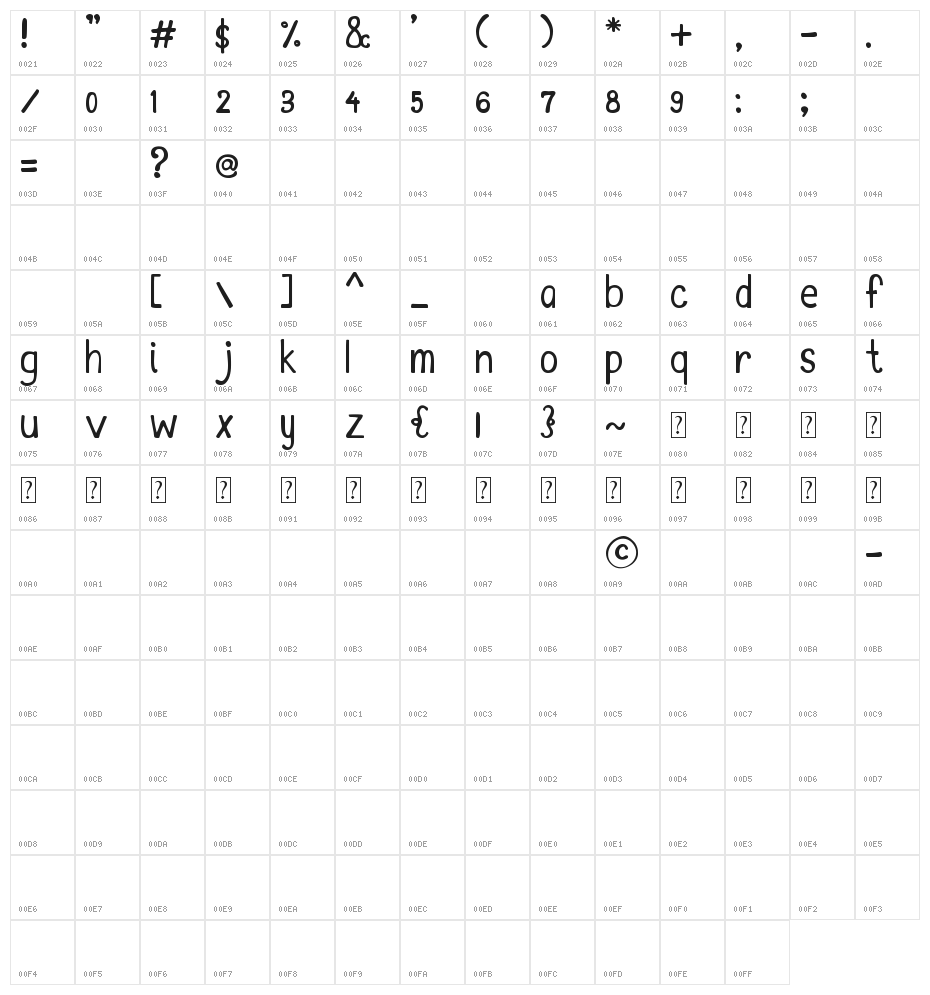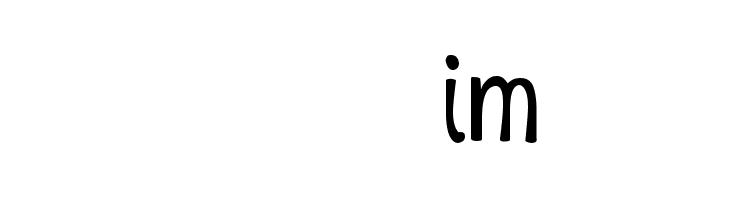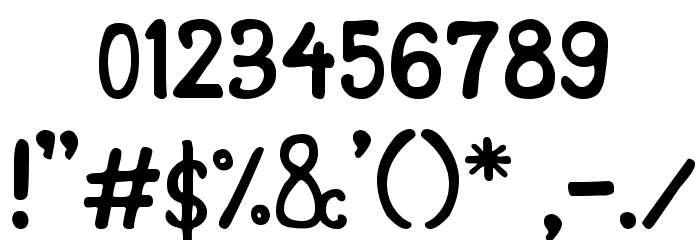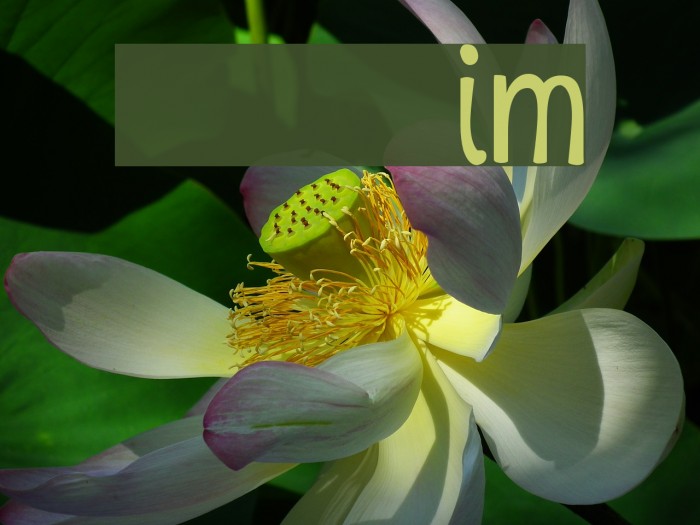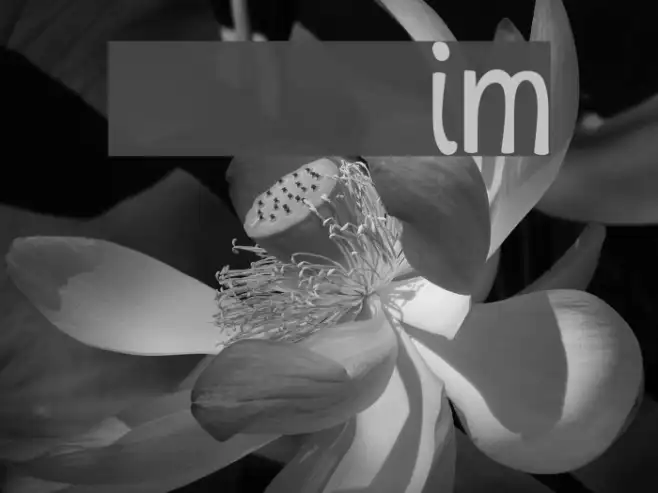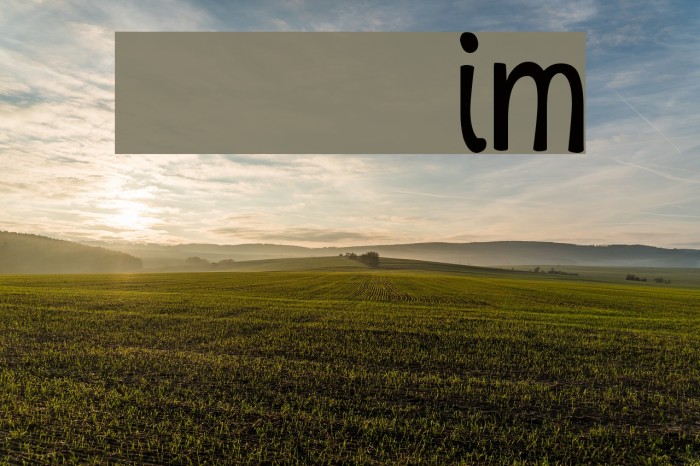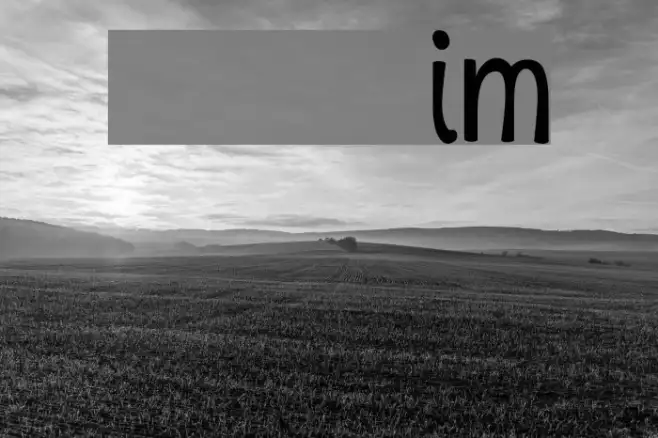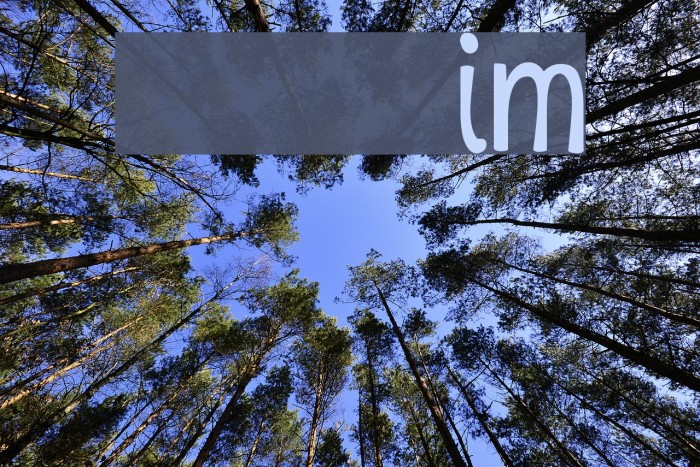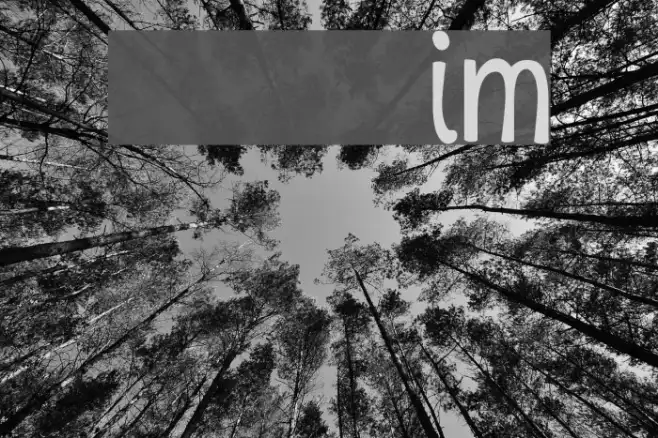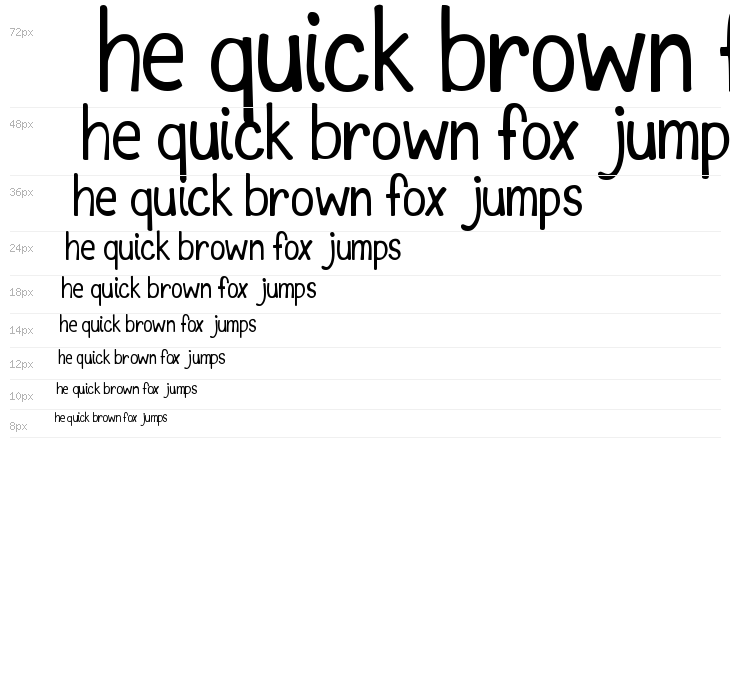
MTF Kim Font
MTF Kim Description
This playful and rounded font features a whimsical style with smooth curves and a friendly appearance. The lowercase letters are uniform in height, contributing to a cohesive look, while the uppercase letters maintain a consistent width. The numbers are bold and easily distinguishable, making them suitable for various applications. Special characters are designed with the same playful aesthetic, ensuring they blend seamlessly with the rest of the typeface. The overall design is approachable and ideal for projects that require a touch of fun and creativity.
| Proposed Projects | Ideal for children's books, playful branding, greeting cards, and casual invitations. |